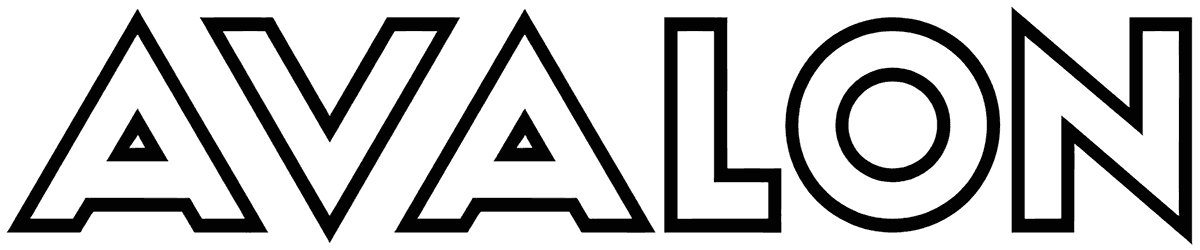
Avalon Font
Avalon is a futuristic outlined sans serif font! This font and its playful characters add an advanced and sociable feel, plus they will provide your modern project or typography with a stylish and confident look. Lower c…
Avalon is a futuristic outlined sans serif font! This font and its playful characters add an advanced and sociable feel, plus they will provide your modern project or typography with a stylish and confident look.
Lower case alphabets are not available in the geometrical letterforms. Books, posters, apps, games, branding, and logos are the places you might want to include Avalon or wherever you wish for a fun and friendly vibe.
“Avalon” comes in Regular and Square version.